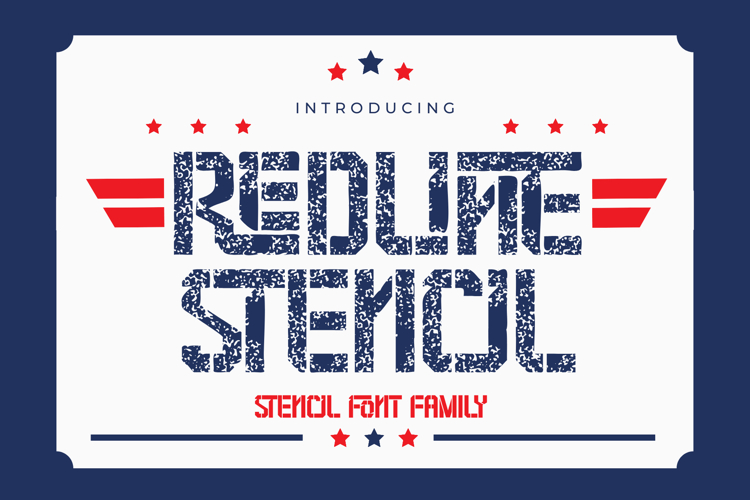
Immerse yourself in the classic appeal of Redline Stencil - a vibrant athletic-inspired typeface that's deeply influenced by the visual dynamics of America's beloved sport. This font, dressing in a fresh spin of retro elegance, encapsulates the thrilling dance between intensity and swiftness that marks the playground. Redline Stencil invigorates your designs with a burst of potency and charismatic panache. Engage in a timeless voyage between the domains of vintage beauty and sporting energy with the Redline Stencil typeface.